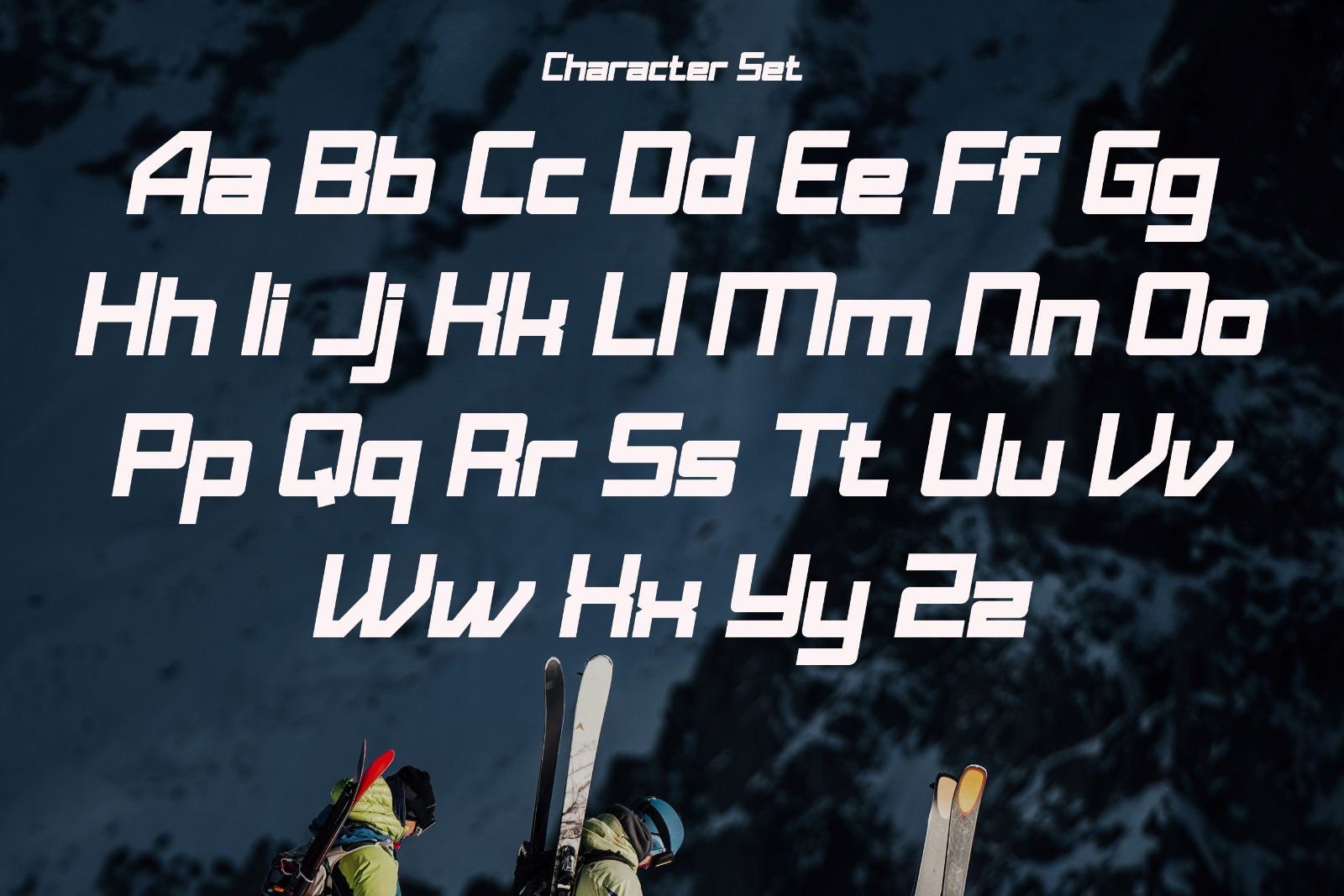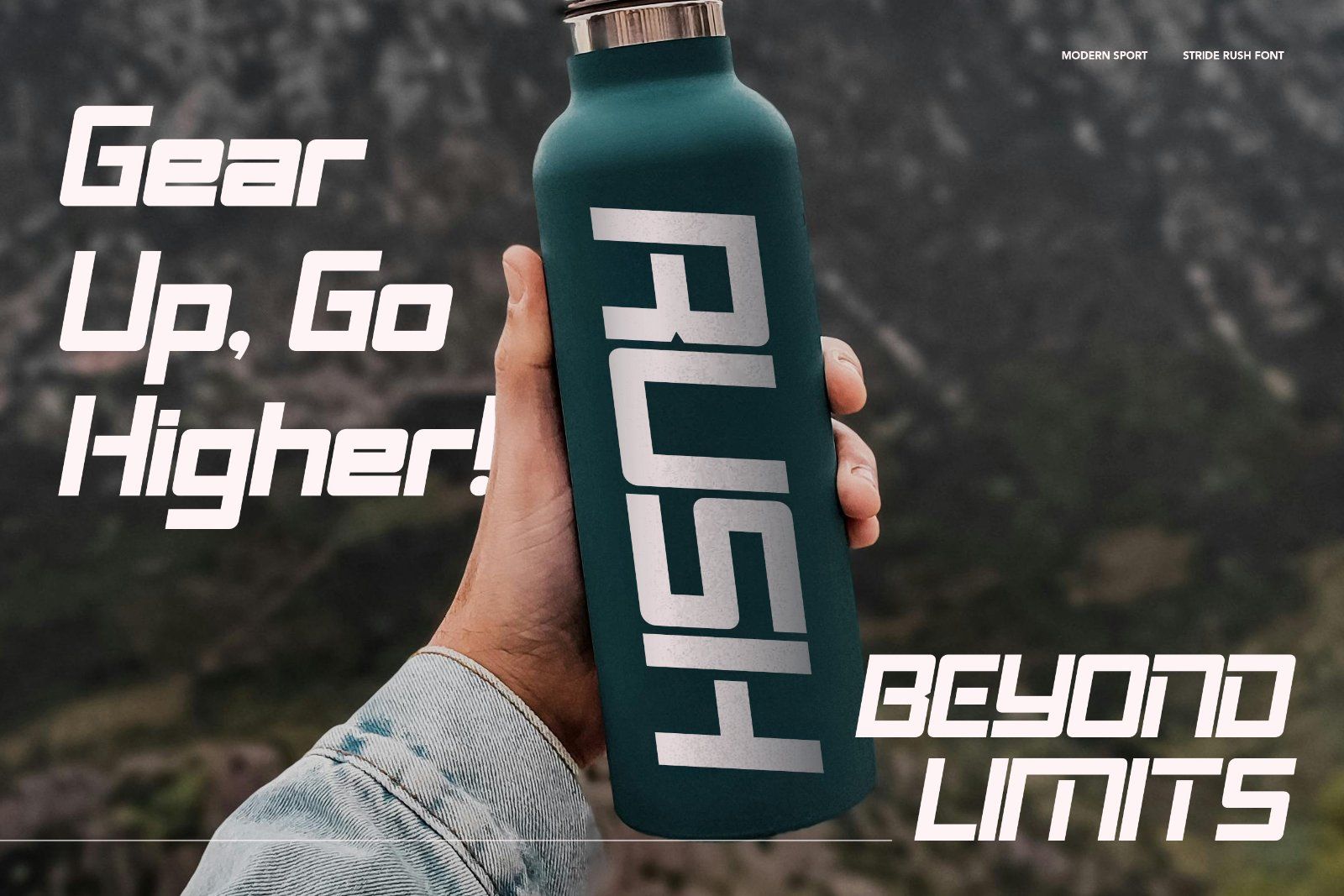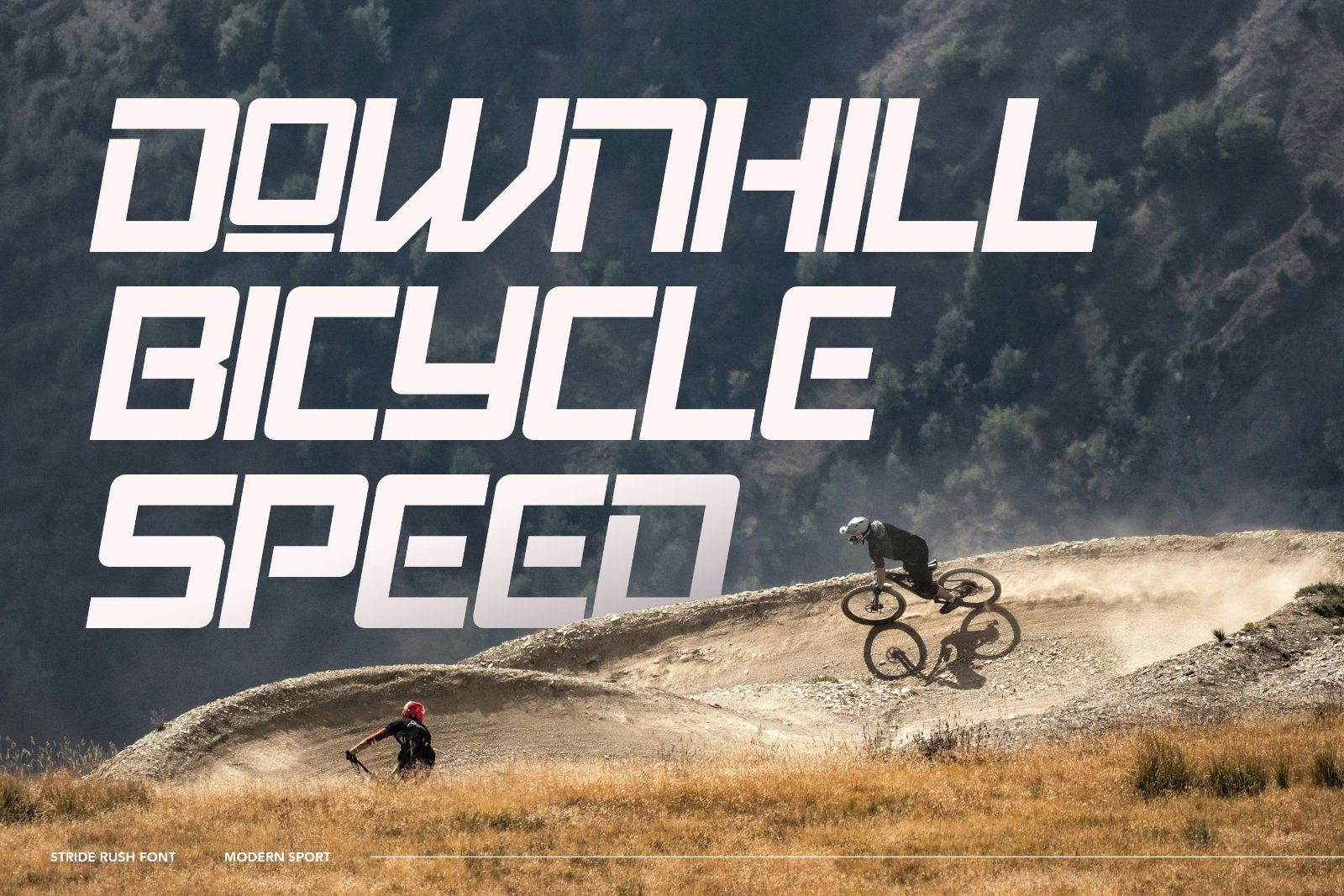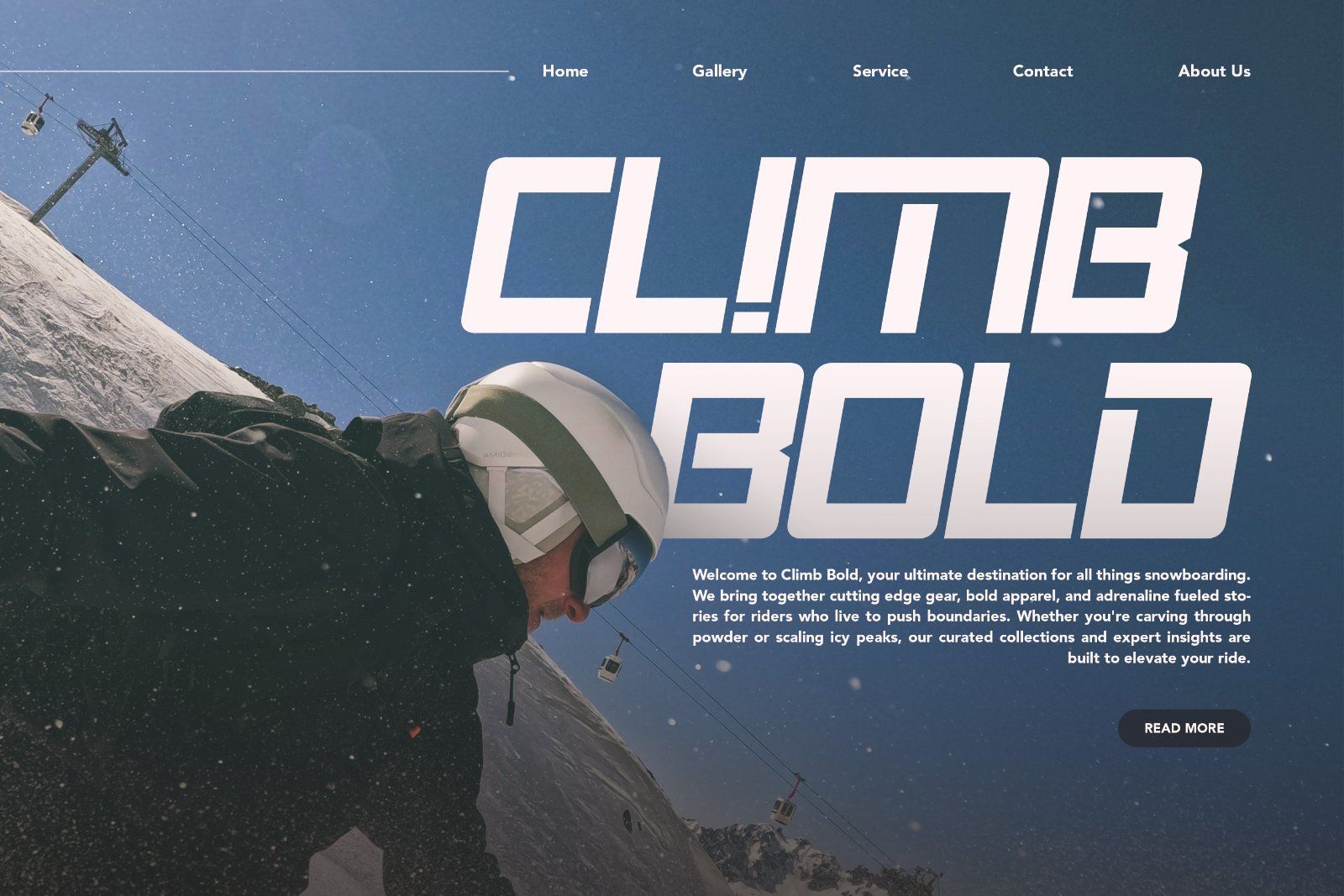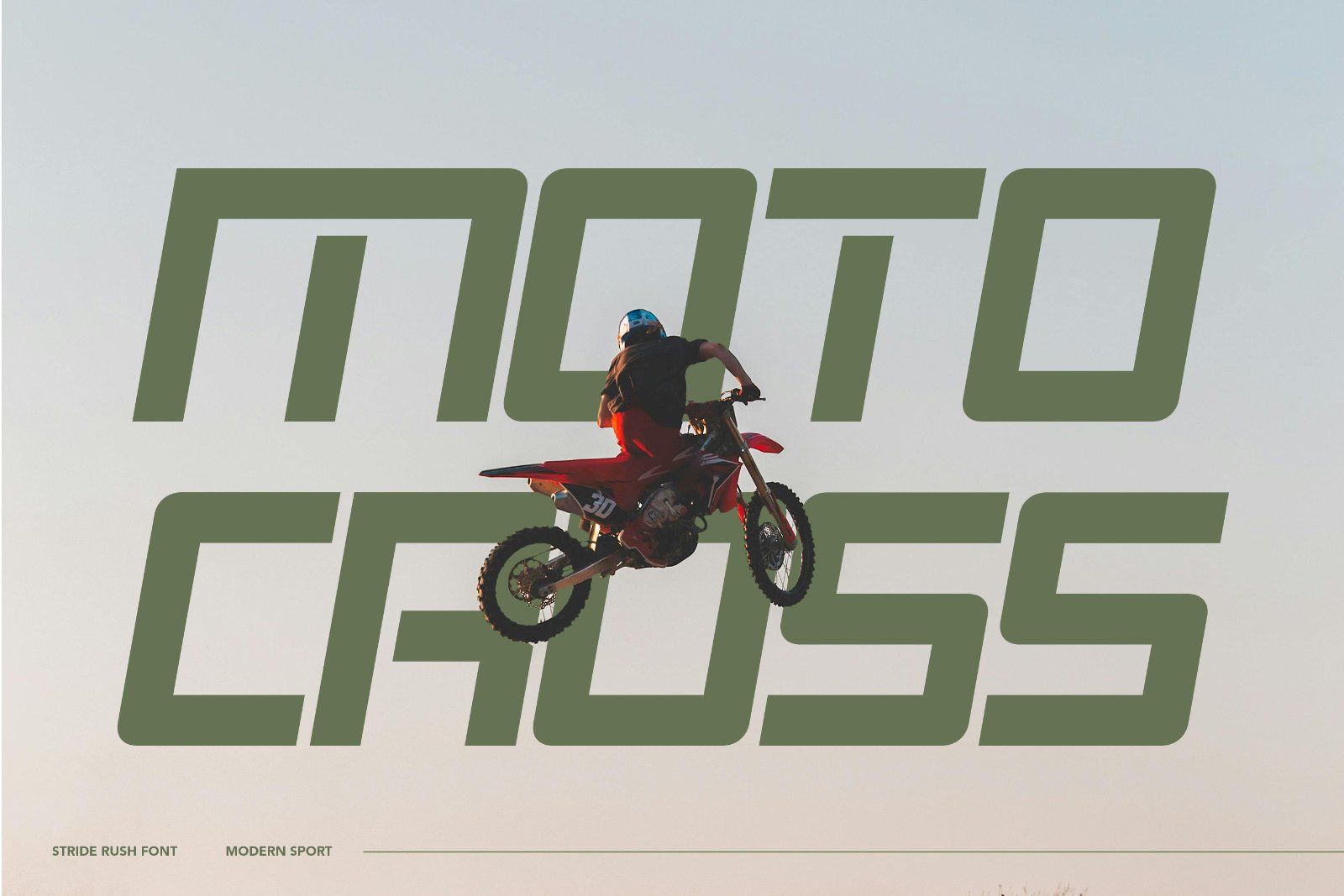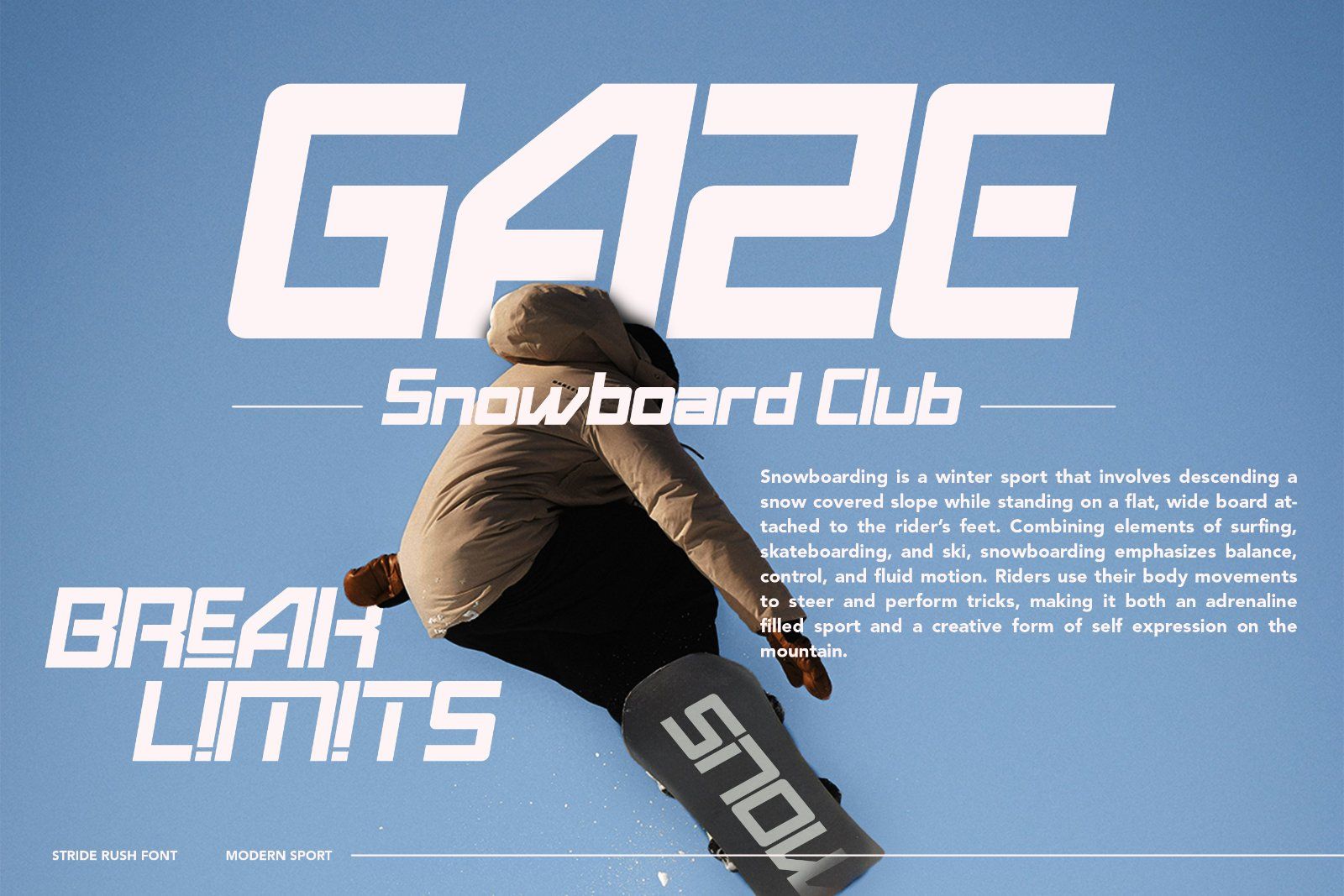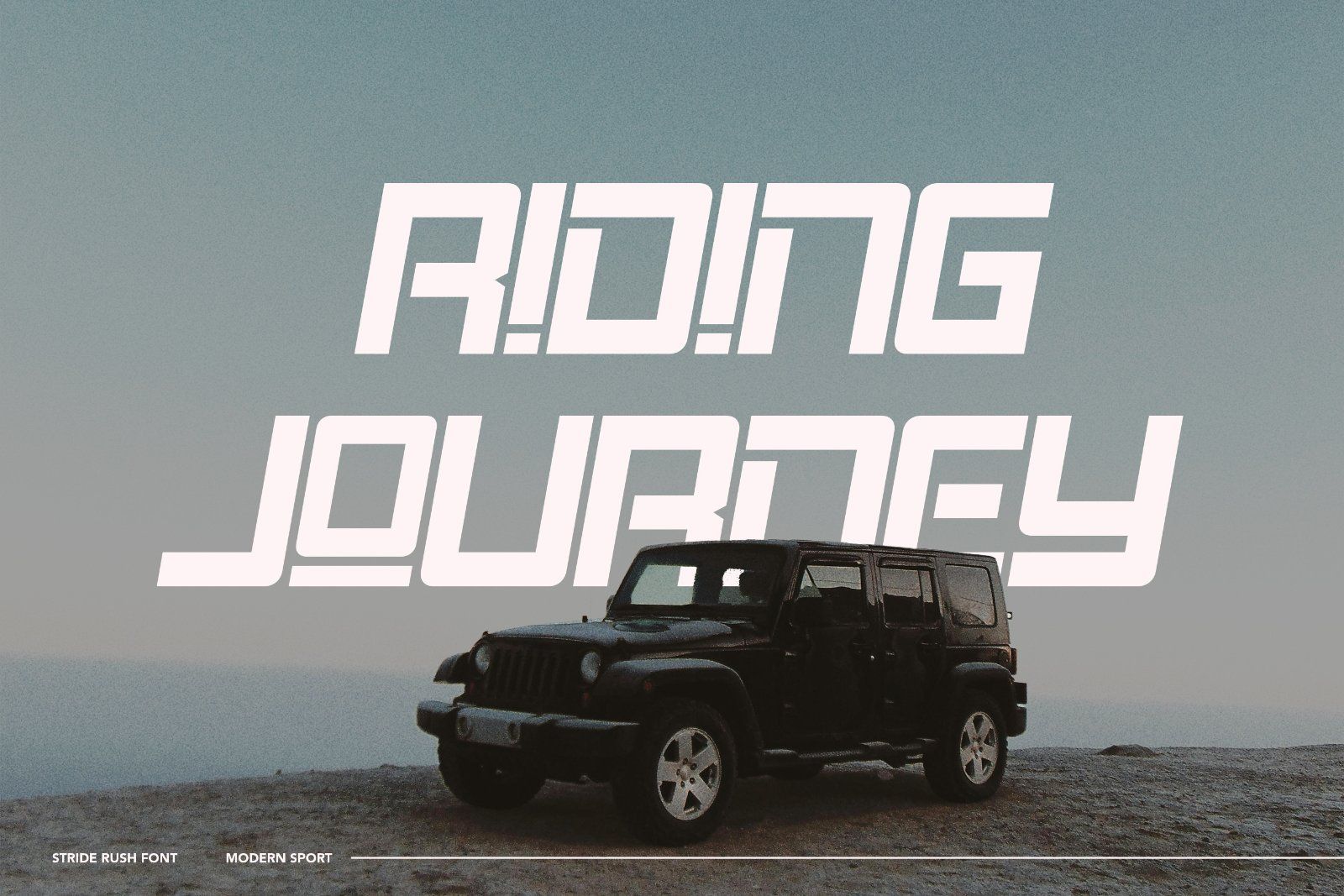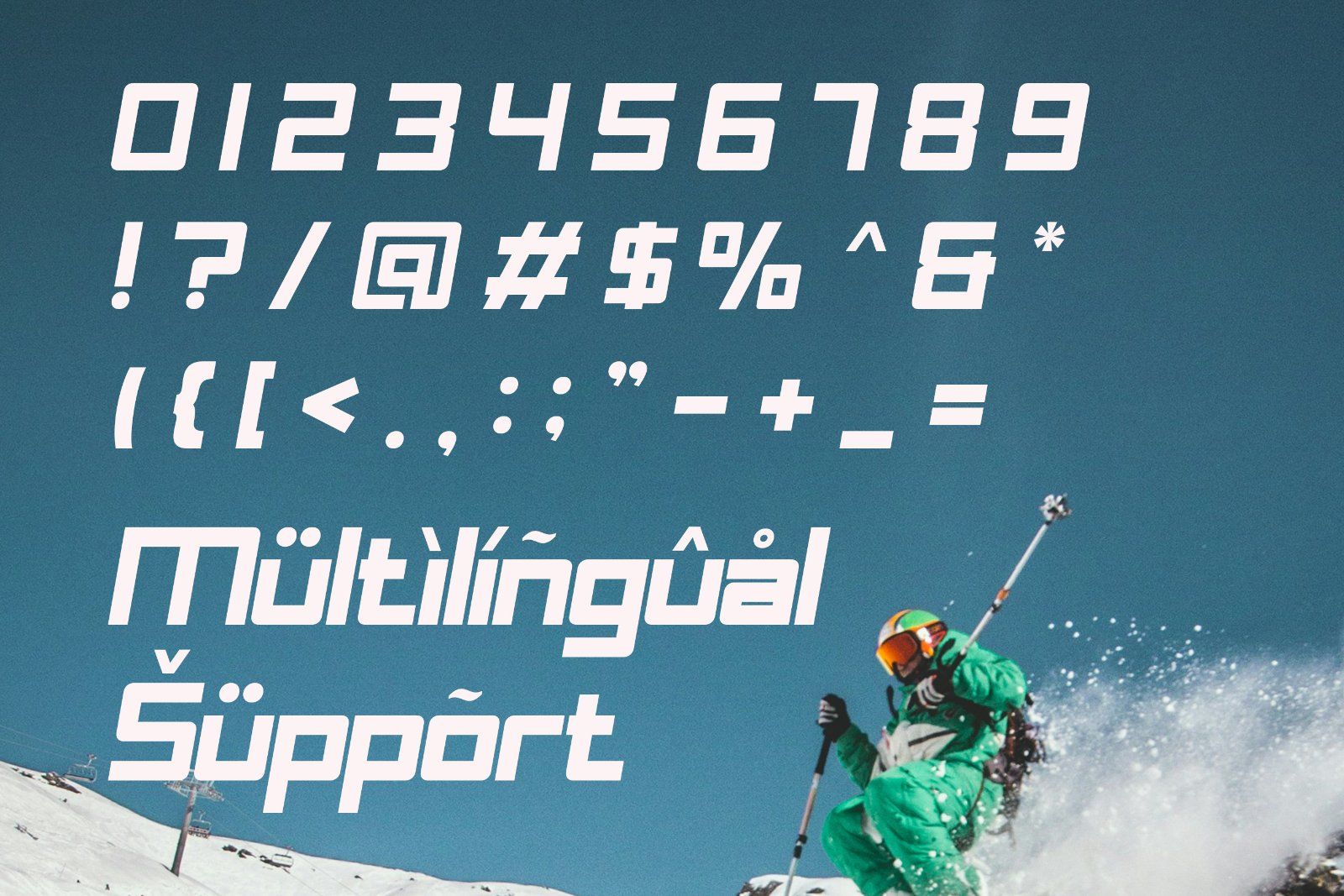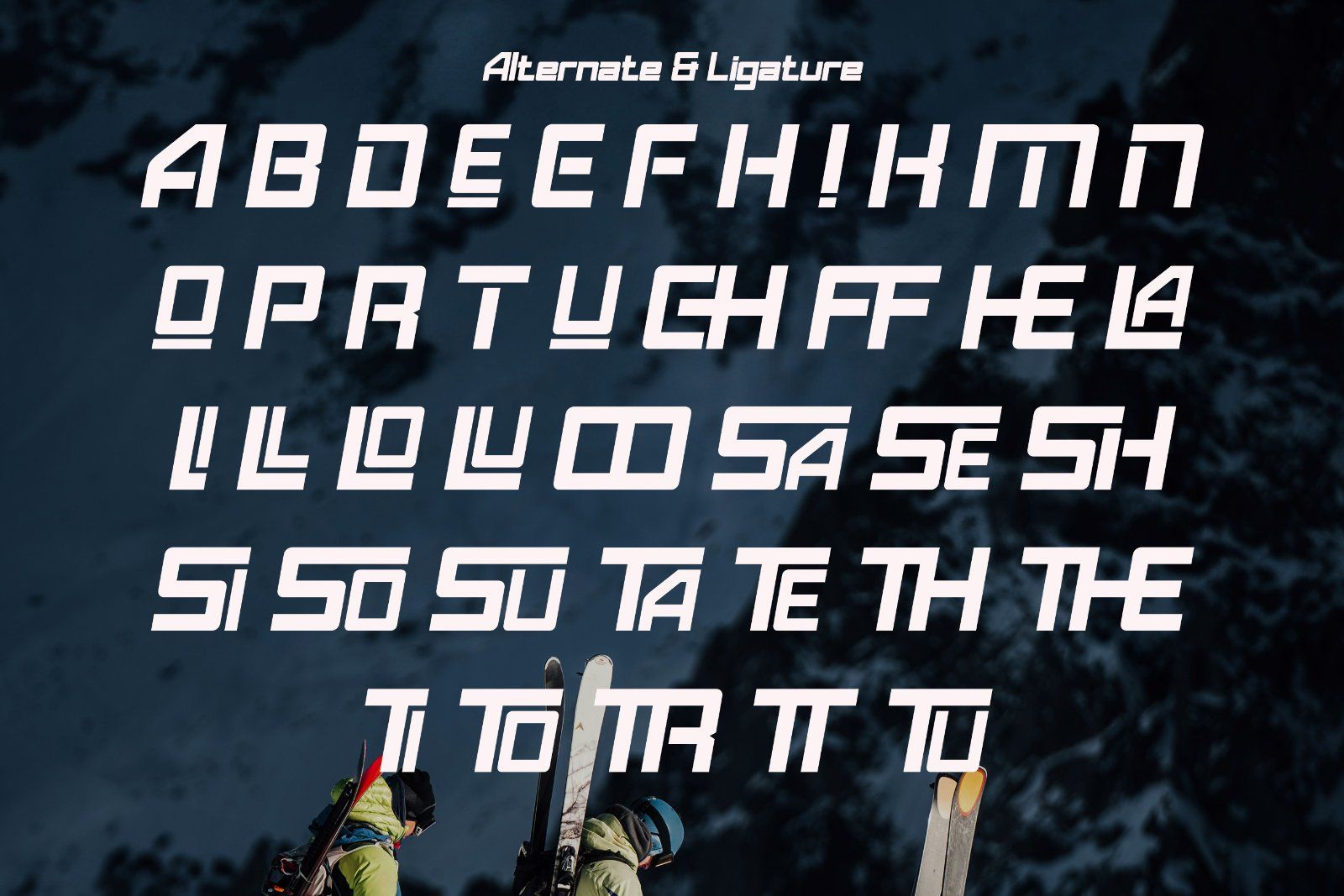
Stride Rush is a bold and dynamic modern sport font built for speed, energy, and impact. With sharp angles, sleek curves, and a futuristic edge, it delivers a sense of motion even in stillness. Perfect for sports branding, racing graphics, activewear, posters, and any design that demands adrenaline and power — Stride Rush pushes your visuals beyond limits.
• Uppercase alphabet A-Z
• Lowercase alphabet a-z
• Numbers 0-9
• Some punctuation
• Some Alternates and Ligatures